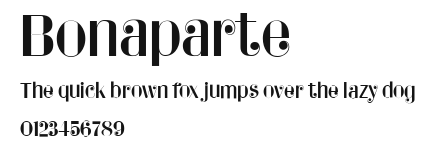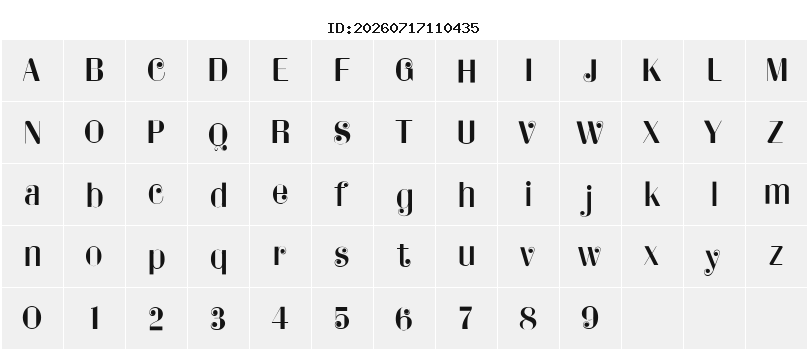
Bonaparte Preview
• Font Name: Bonaparte
• Full Font Name: Bonaparte
About Bonaparte.ttf
Bonaparte.ttf is a modern, elegant sans-serif font designed for ultimate readability and visual harmony. Perfect for branding, headlines, web design, and print materials.